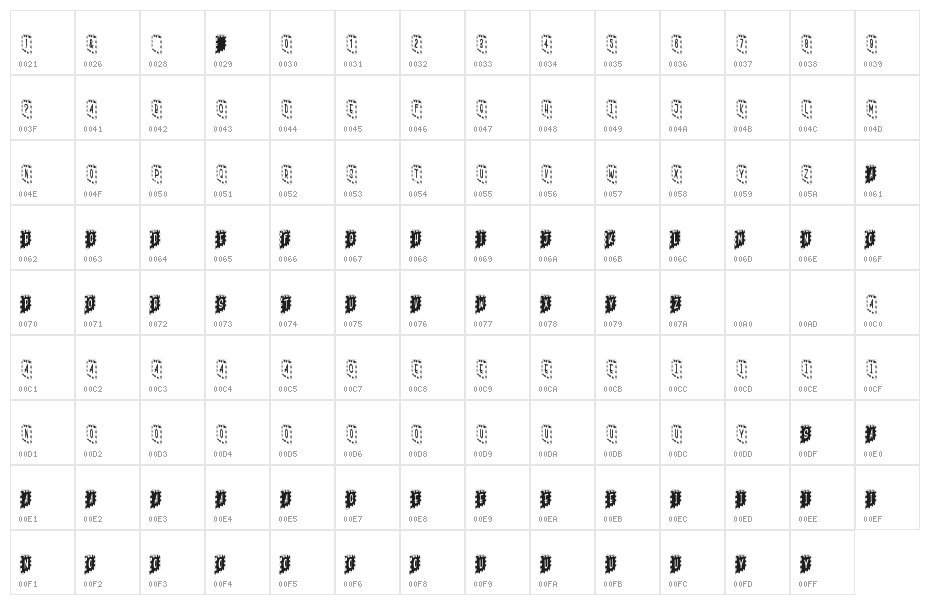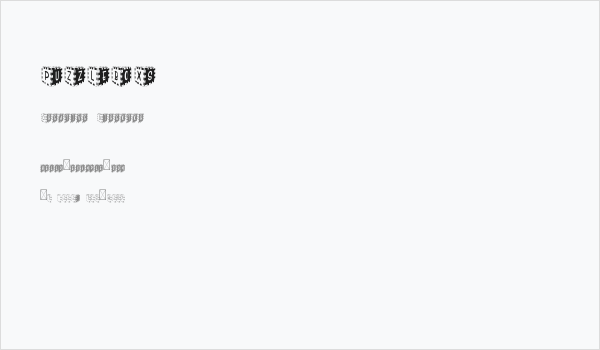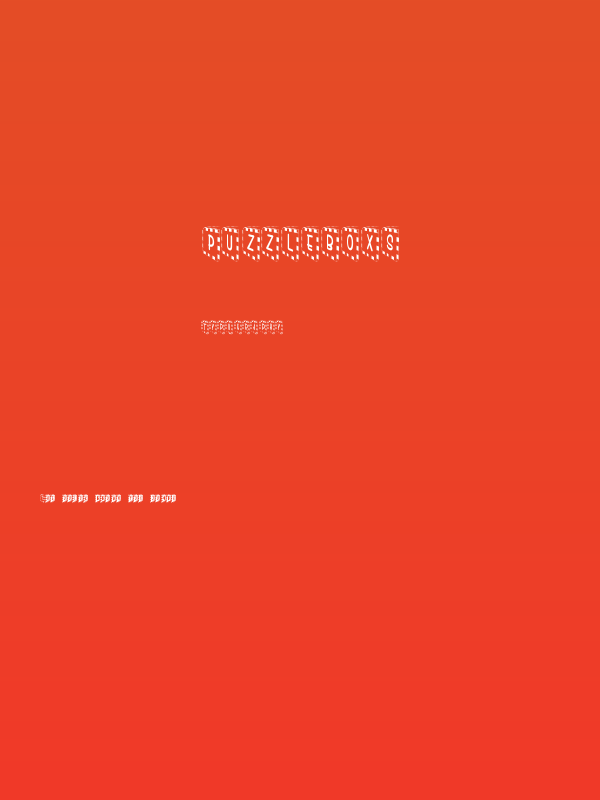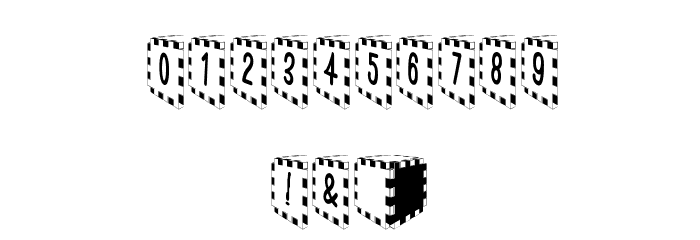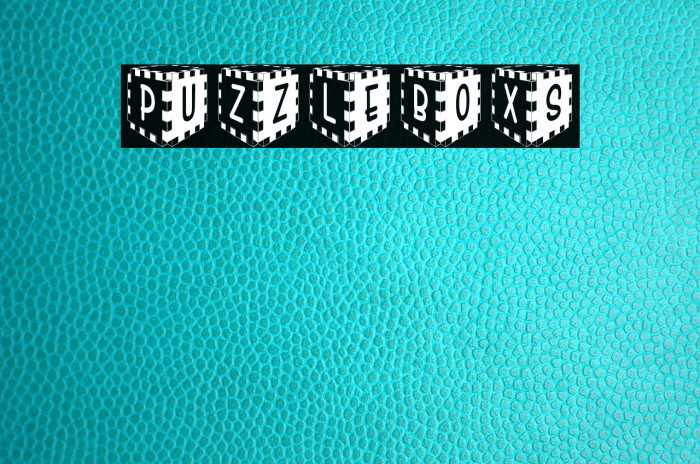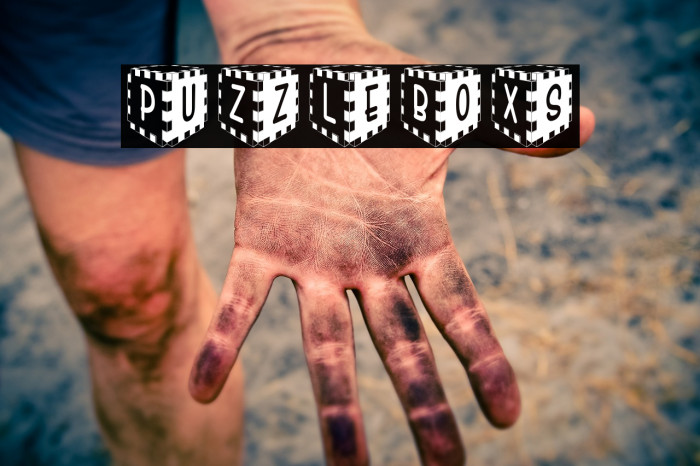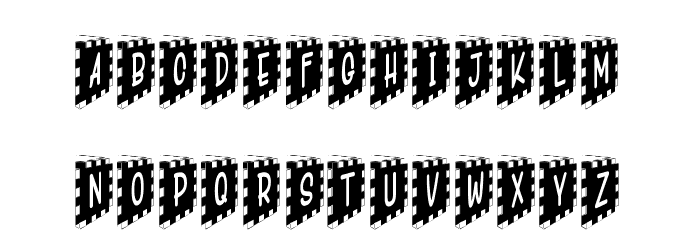
PuZzLeBoXs Font
PuZzLeBoXs Description
This font features a unique 3D block style, where each character appears as if it's part of a puzzle or cube. The letters and numbers are enclosed in a box with a checkered pattern on the sides, giving a playful and dynamic appearance. The bold, geometric shapes make it stand out, while the consistent use of the cube motif across all characters provides a cohesive look. The font is highly decorative and is designed to grab attention, making it suitable for creative and playful design projects.
| Proposed Projects | Ideal for children's book covers, toy packaging, playful branding, and creative posters. |